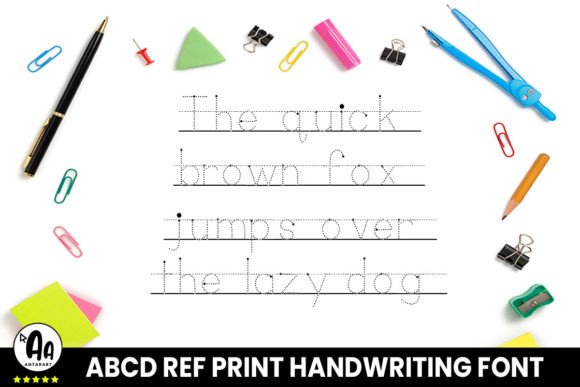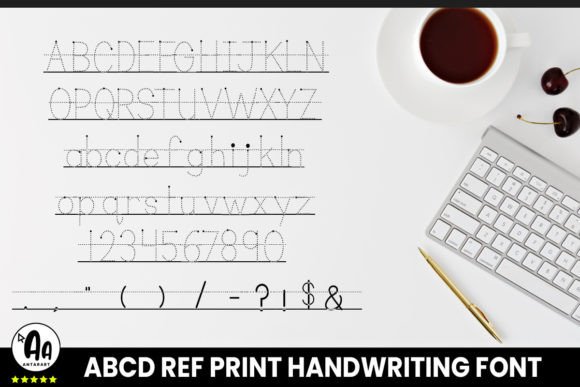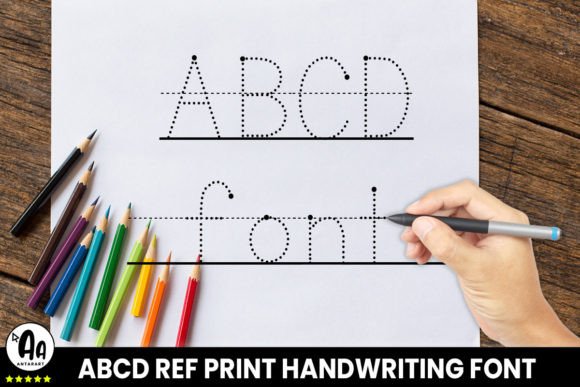
Unleashing the Fun of Learning: Abcd Ref Dotted Bulleted Lined1 Font
Remember when you were a kid, eagerly waiting for your next art project or worksheet at school? The excitement of creating something new and learning at the same time is a feeling that never fades. For many designers, this creative spark can be rekindled by discovering new and innovative tools that make learning enjoyable.
One such tool is the Abcd Ref Dotted Bulleted Lined1 Font, a dotted bulleted font that’s inspired by the D’Nealian Method used in US schools. This font is specifically designed to help create thousands of interactive and engaging worksheets for both learning and teaching the print alphabet. Its unique design makes it a valuable resource for designers who want to bring a touch of fun and interactivity to their educational projects.
Abcd Ref Dotted Bulleted Lined1 Font Key Features
- Font Family: Abcd Ref Dotted Bulleted Lined1, a unique and decorative font designed for headings and titles.
- Unique Characteristics: Features a distinctive dotted and lined design, making it stand out from other fonts and adding a touch of elegance to any text.
Designer Review: Abcd Ref Dotted Bulleted Lined1 Font
Overall, I’m impressed with the Abcd Ref Dotted Bulleted Lined1 Font, but like any font, it has its strengths and weaknesses. ✨
- Beautiful, modern design: The Abcd Ref Dotted Bulleted Lined1 Font has a clean and minimalist aesthetic that makes it perfect for digital applications.
- High level of detail: The font features intricate dotted and lined elements that add a unique touch to any text.
- Excellent legibility: The font is highly readable, even at small sizes, making it ideal for body text and other applications where readability is crucial.
- Not ideal for small text: While the font is highly legible, it can become difficult to read when the text size is too small, particularly in print applications.
- May not be suitable for formal documents: The font’s modern design may not be suitable for formal documents or applications where a more traditional font is preferred.
- Limited language support: The font may not support certain languages or character sets, which could limit its use in international applications.
Overall, I think the Abcd Ref Dotted Bulleted Lined1 Font is a great addition to any designer’s toolkit, but it’s essential to be aware of its limitations and use it accordingly.
Tips for Getting the Most Out of “Abcd Ref Dotted Bulleted Lined1 Font”
Use “Abcd Ref Dotted Bulleted Lined1 Font” to add a touch of elegance and sophistication to your designs.
Pair it with bold or italic fonts to create a visually appealing contrast.
Experiment with different font sizes and colors to create a unique look.
Use “Abcd Ref Dotted Bulleted Lined1 Font” for:
Resumes and CVs
Business presentations
Wedding invitations
Formal event invitations
Alternative Typography Options for Designers
1. Georgia Font
Georgia Font is a serif font designed for readability, making it an excellent choice for body text in print materials. It is often used in formal documents and publications. In comparison to Abcd Ref Dotted Bulleted Lined1 Font, Georgia Font is more traditional and elegant, but may lack the playful touch of Abcd Ref Dotted Bulleted Lined1 Font.
Open Sans Font is a clean and modern sans-serif font suitable for digital interfaces and web design. It is highly legible and versatile, making it a popular choice for designers. In comparison to Abcd Ref Dotted Bulleted Lined1 Font, Open Sans Font is more minimalist and professional, but may lack the personality and flair of Abcd Ref Dotted Bulleted Lined1 Font.